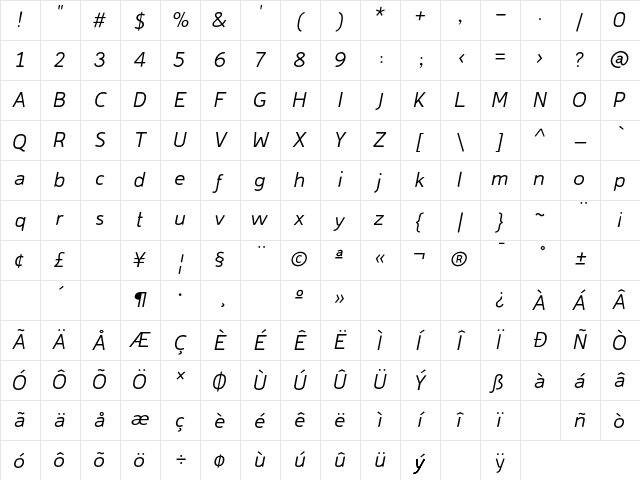
Domestos98 ThinItalic
Design Context for Domestos98
Domestos98 is a composed and adaptable typeface that performs quietly and consistently across a wide range of design contexts. The slanted form adds forward momentum and visual energy. Its slender proportions lend an understated elegance to any composition.
Pro Tip: Use Domestos98 for emphasis, pull quotes, and subheadings where its slanted energy can add rhythm to the layout.